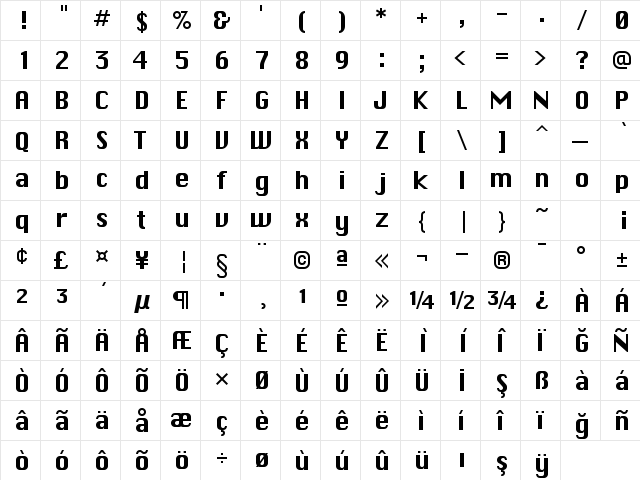
TrSah Chicago Regular
Design Context for TrSah Chicago Typeface
TrSah Chicago is a composed and adaptable typeface that performs quietly and consistently across a wide range of design contexts.